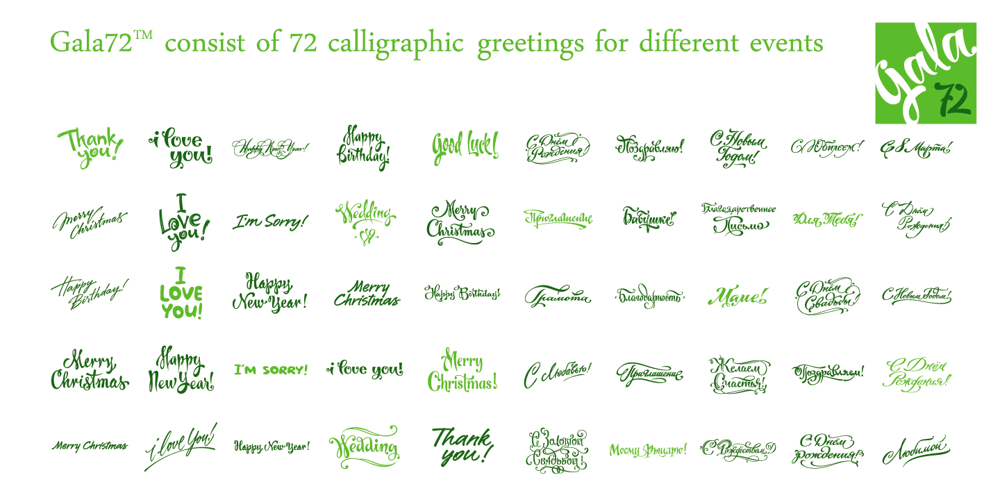
Gala72
Gala72 font
Gala72 Font Family was designed by Dmitriy Shchetinskiy and published by Dmitriy Shchetinskiy. Gala72 contains 1 styles and family package options. Gala72 font consist of 72 calligraphic greetings letterings for different event. These letterings are original and handwritten. This font makes it possible to use high quality calligraphy in your projects – greeting cards, certificates, invitation cards, letters of commendation etc.